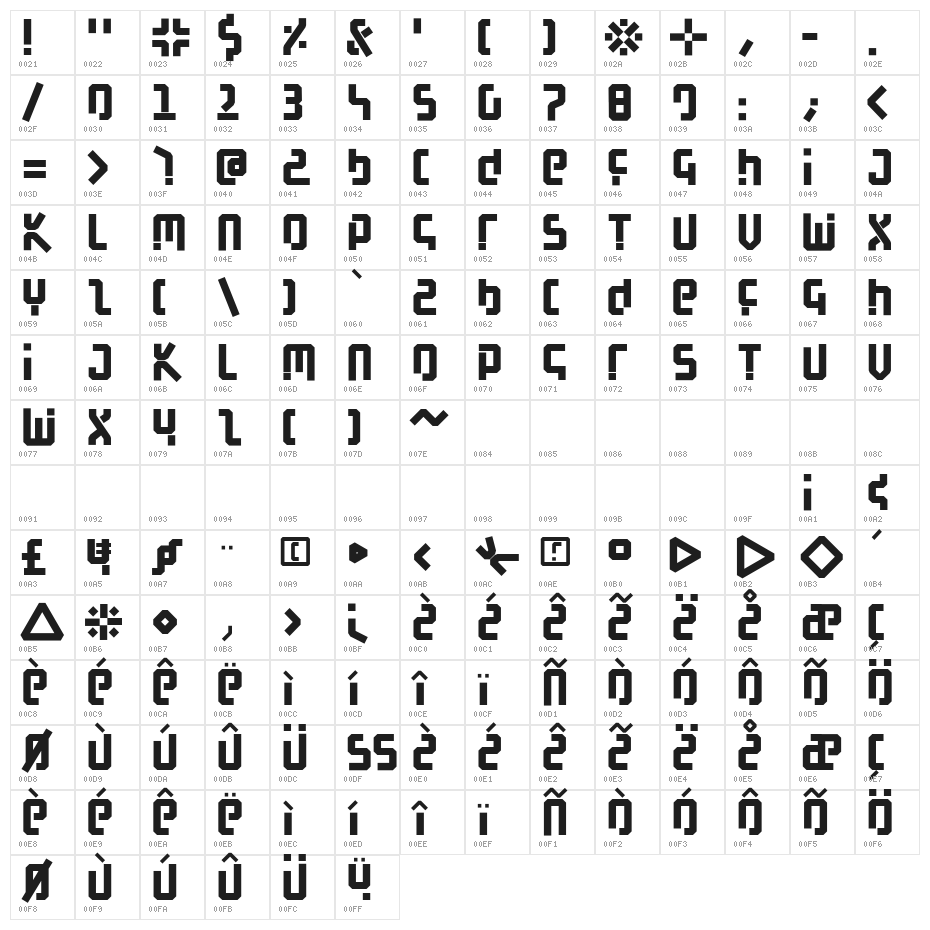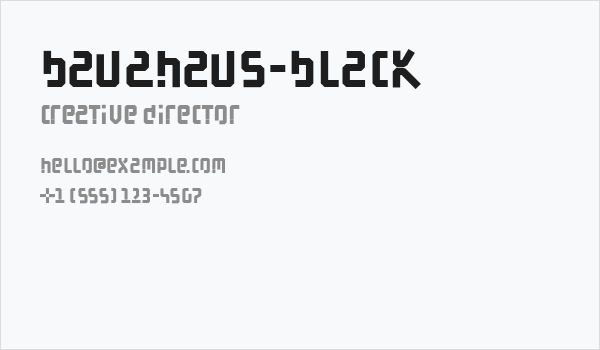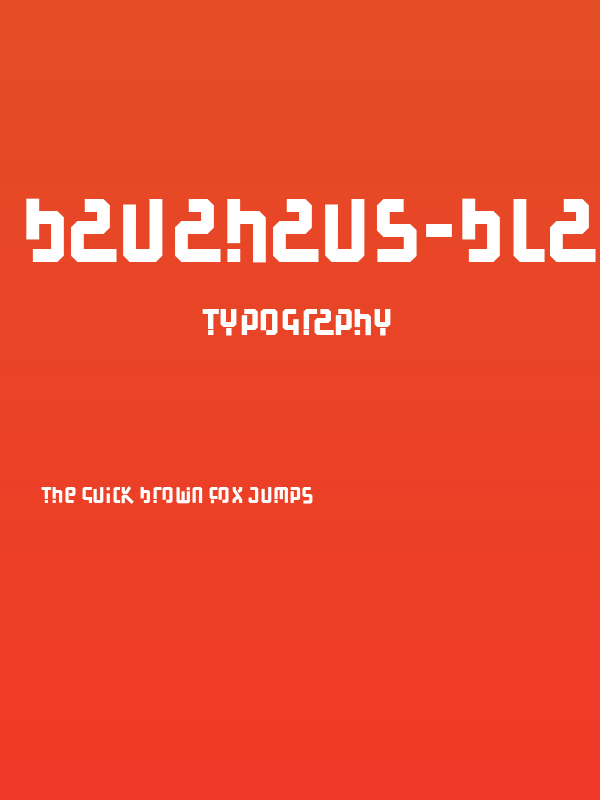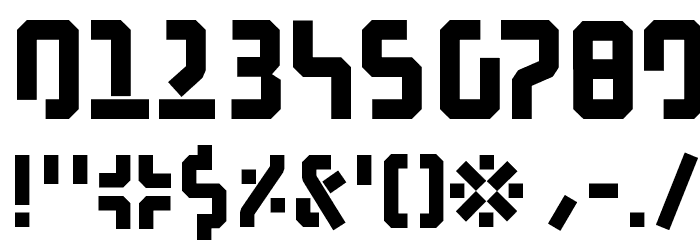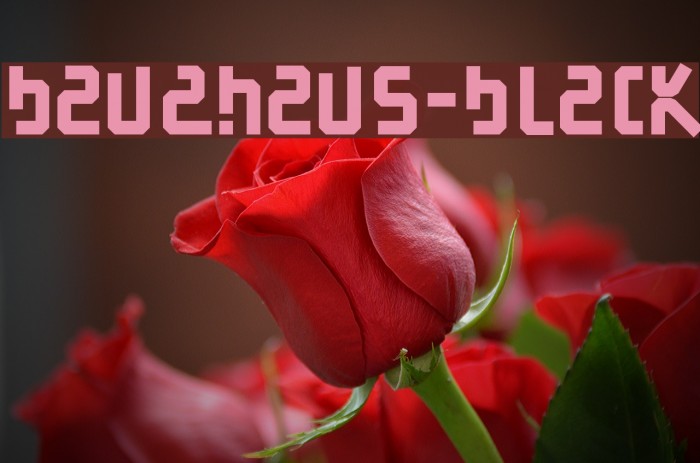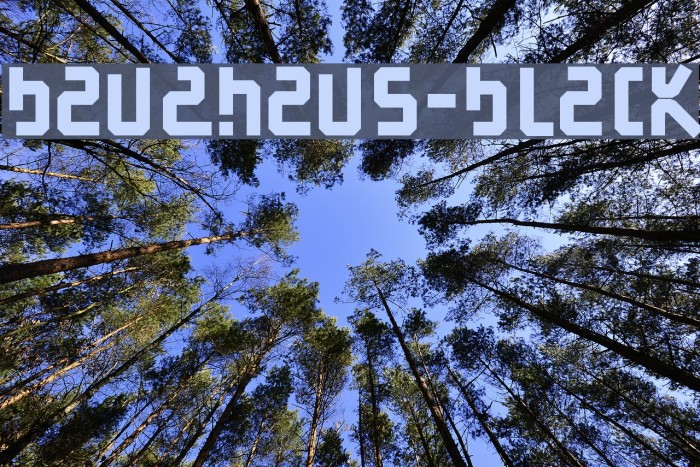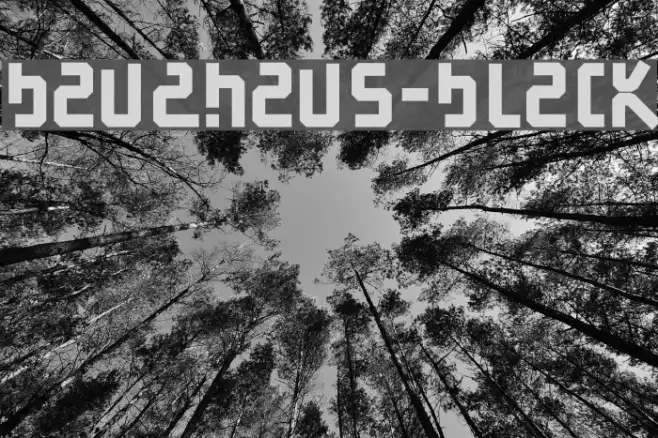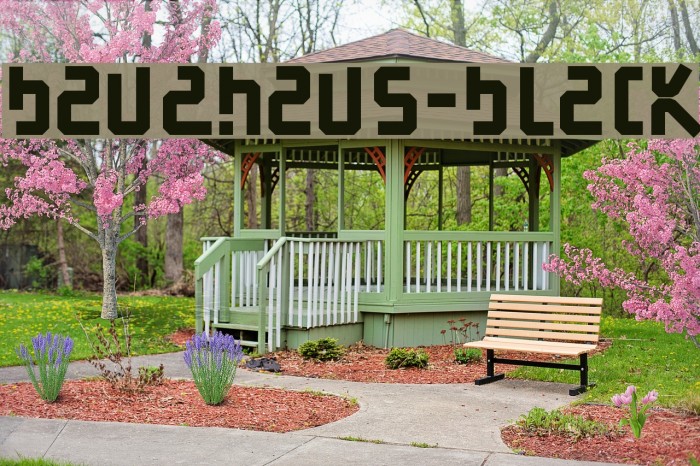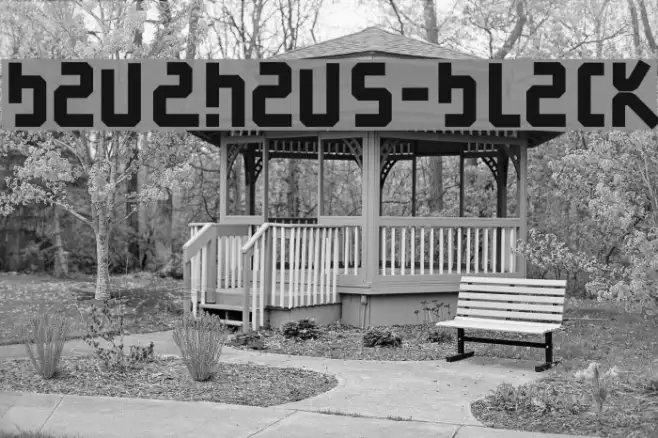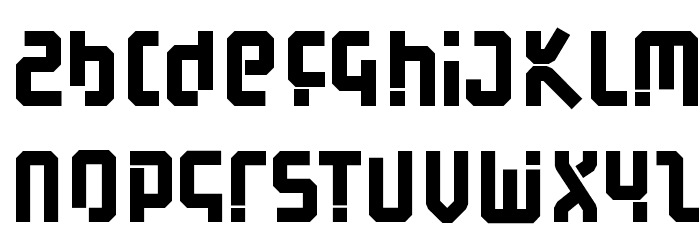
BauAHaus-Black Font
BauAHaus-Black Description
This font exhibits a bold, geometric design with a strong emphasis on angular shapes and straight lines. Each character is constructed with a uniform thickness, creating a cohesive and robust appearance. The style is reminiscent of industrial and architectural influences, with a modern twist that makes it stand out. The uppercase and lowercase letters maintain a consistent height, contributing to a uniform look across text. Numbers and special characters follow the same geometric pattern, ensuring visual harmony. The font's unique style makes it suitable for projects that require a strong, impactful visual presence.